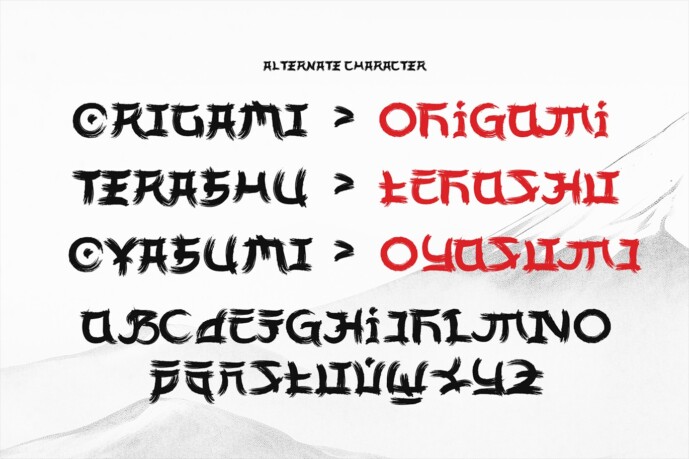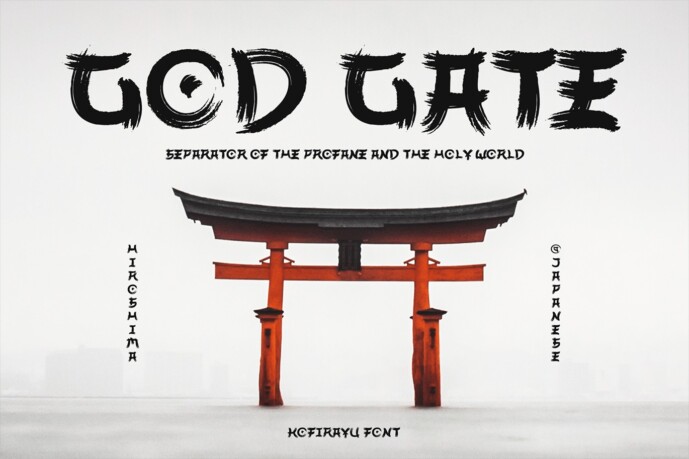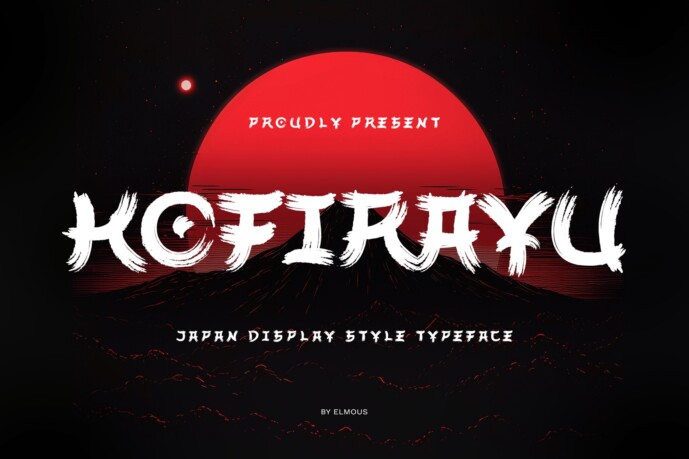
Kofirayu Font
Designer: elmous
Kofirayu Font a Japanese typeface that uses broad, powerful brushstrokes that convey a sense of strength and vigor. The thick brush lines are rough at the edges, giving it a hand-drawn look and conveying the power and discipline of a warrior’s spirit.
The powerful brushstrokes and contrasts evoke themes of power, heritage, tradition and art associated with East Asia, with a balanced combination of traditional brush calligraphy and modern typography, making it suitable for a variety of design contexts, from cultural to contemporary projects, headlines, posters or game themes focusing on warriors, legends or epic tales, artistic or cultural projects that wish to convey an Asian aesthetic, especially Japanese themes.